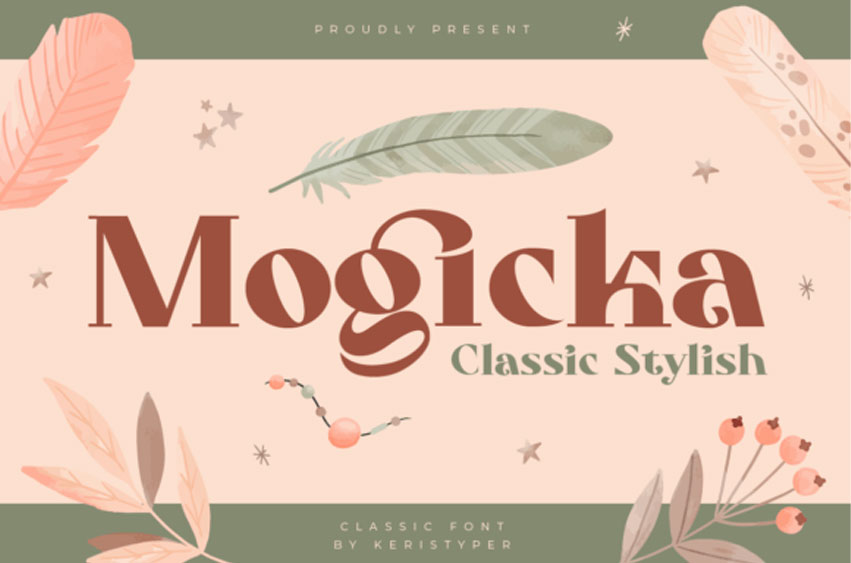
Mogicka Font
Mogicka Font is a classic bold serif font with a stylish shape. It has both a modern and retro look.
This font is good for logo design, Social media, Movie Titles, Books Titles, short text even long text, and good for your secondary text with sans or serif.